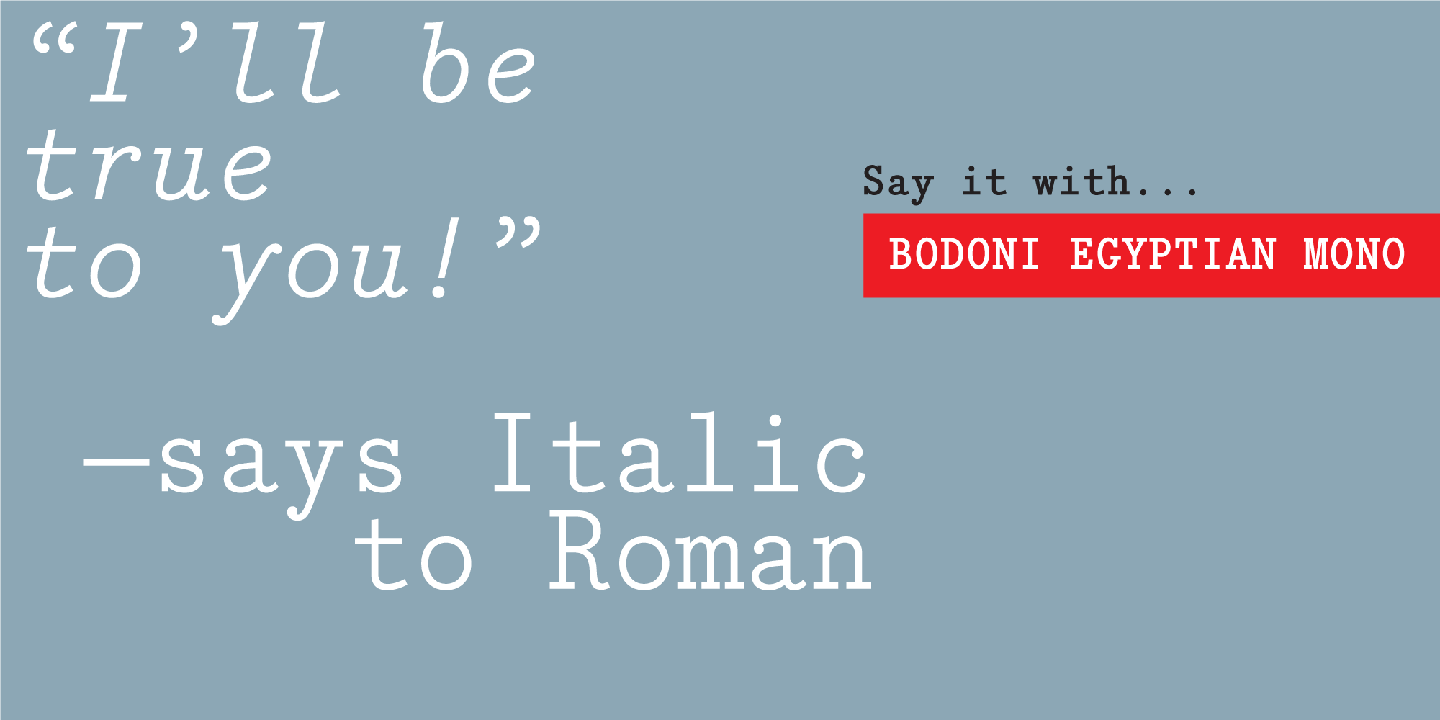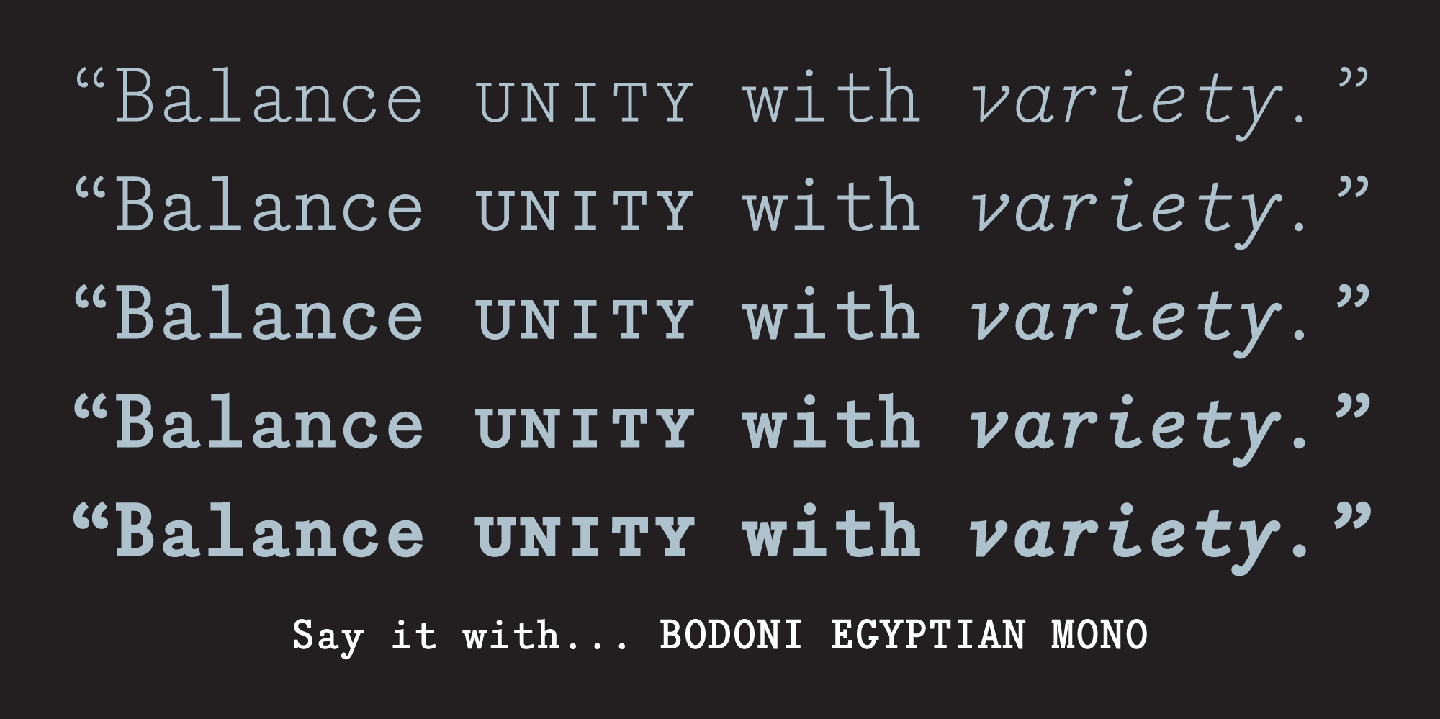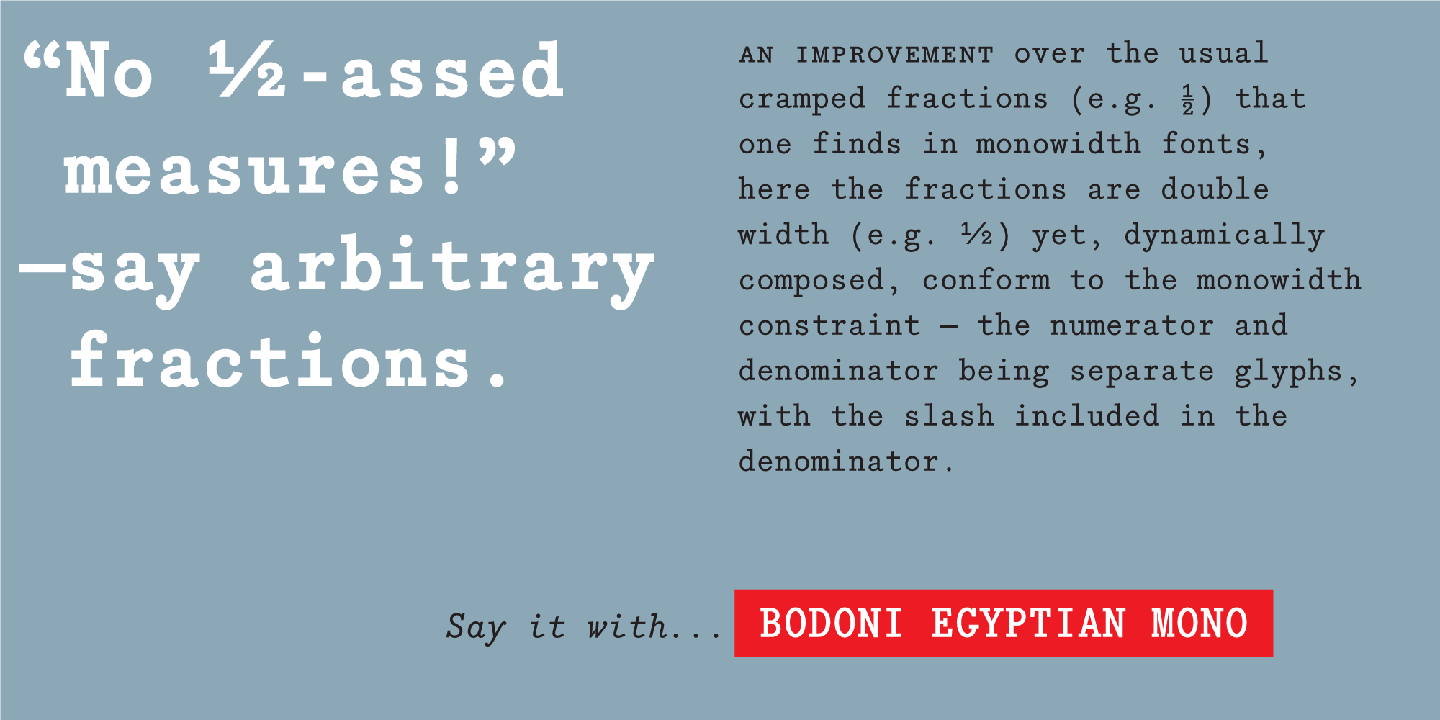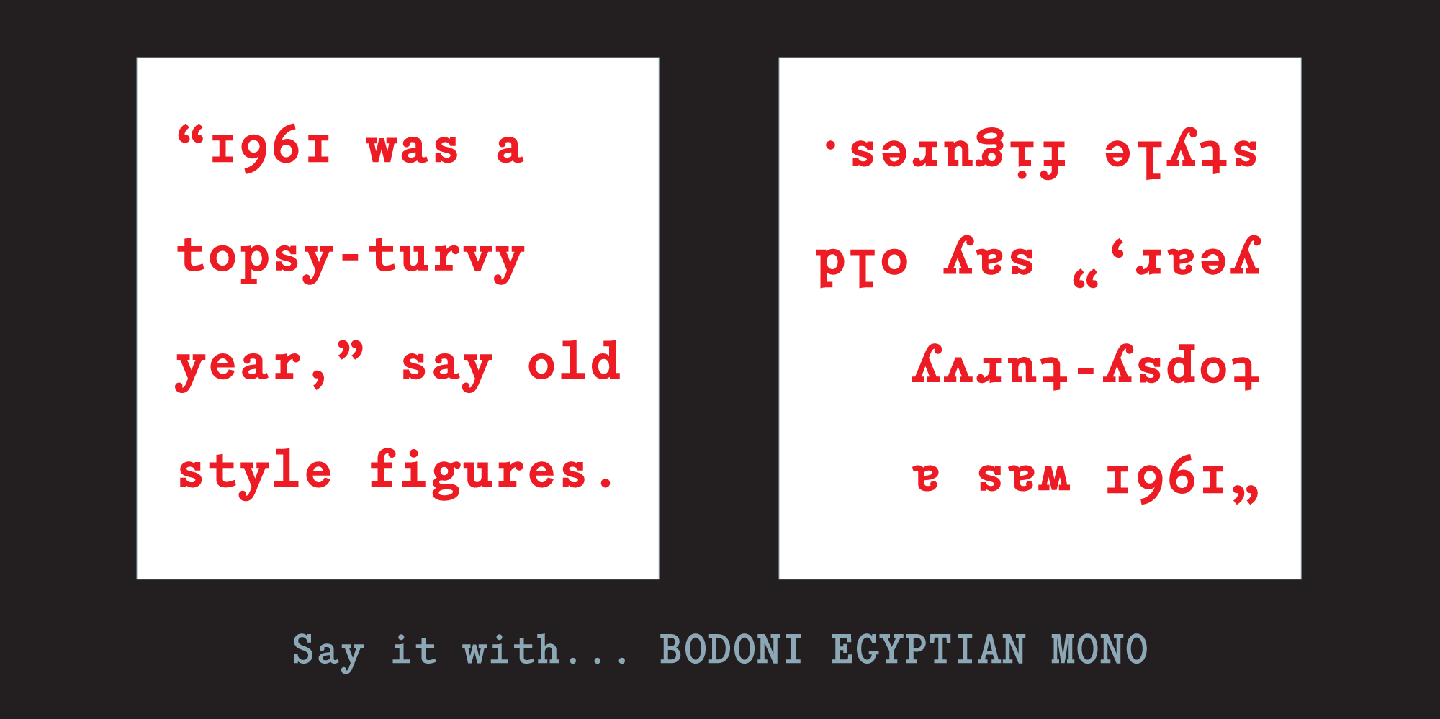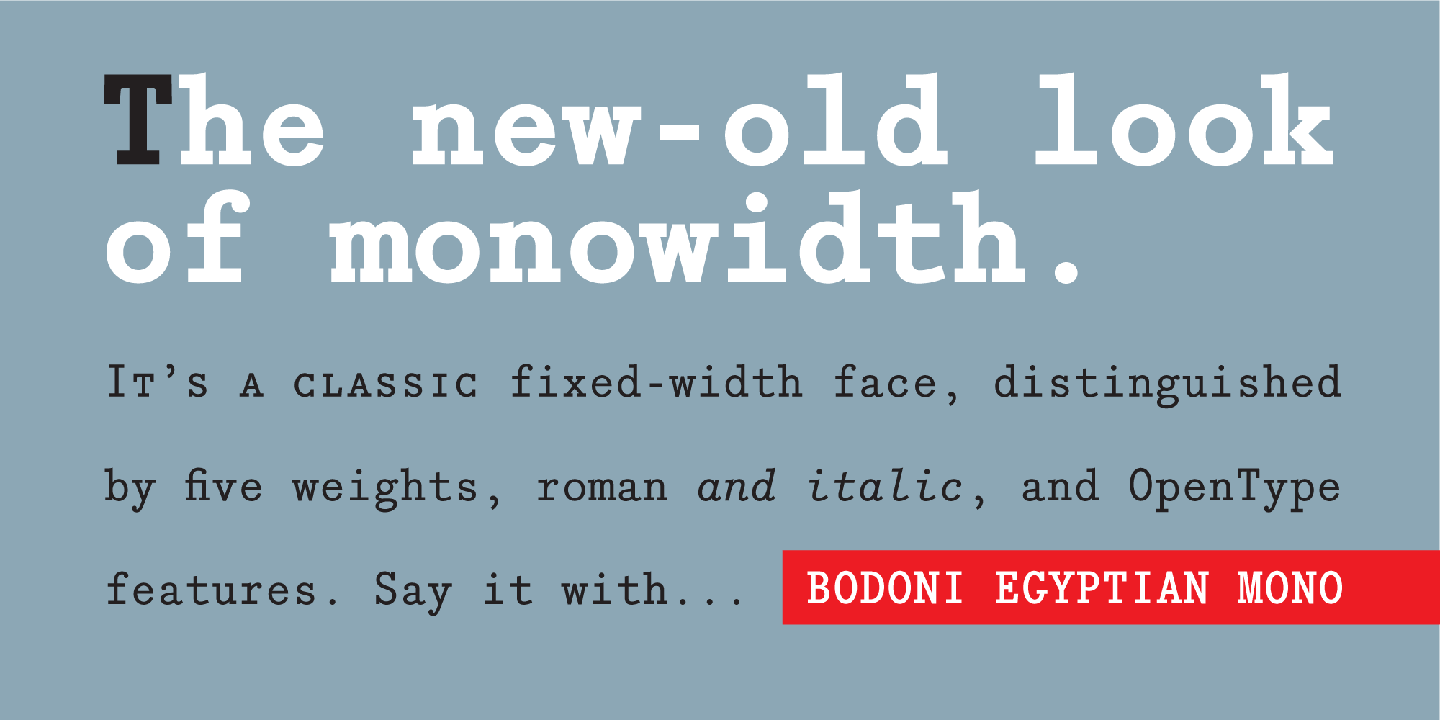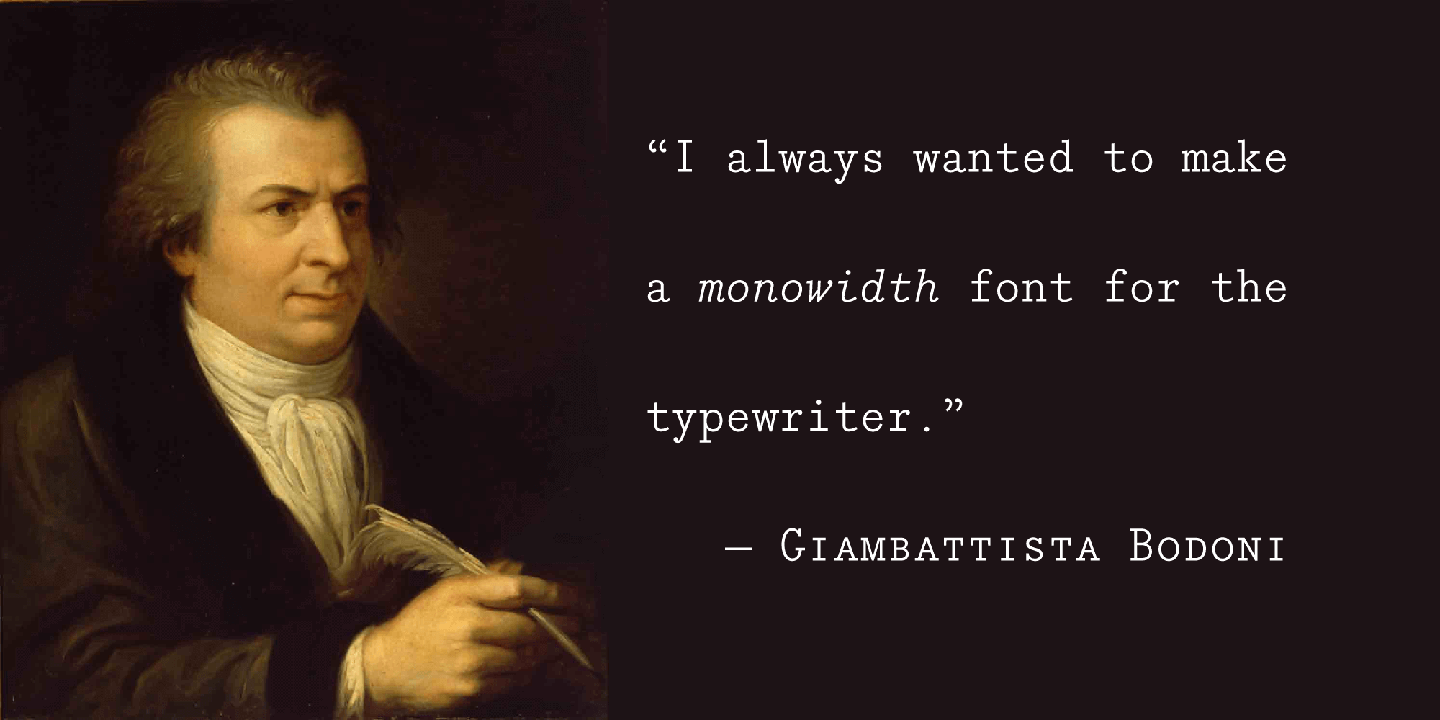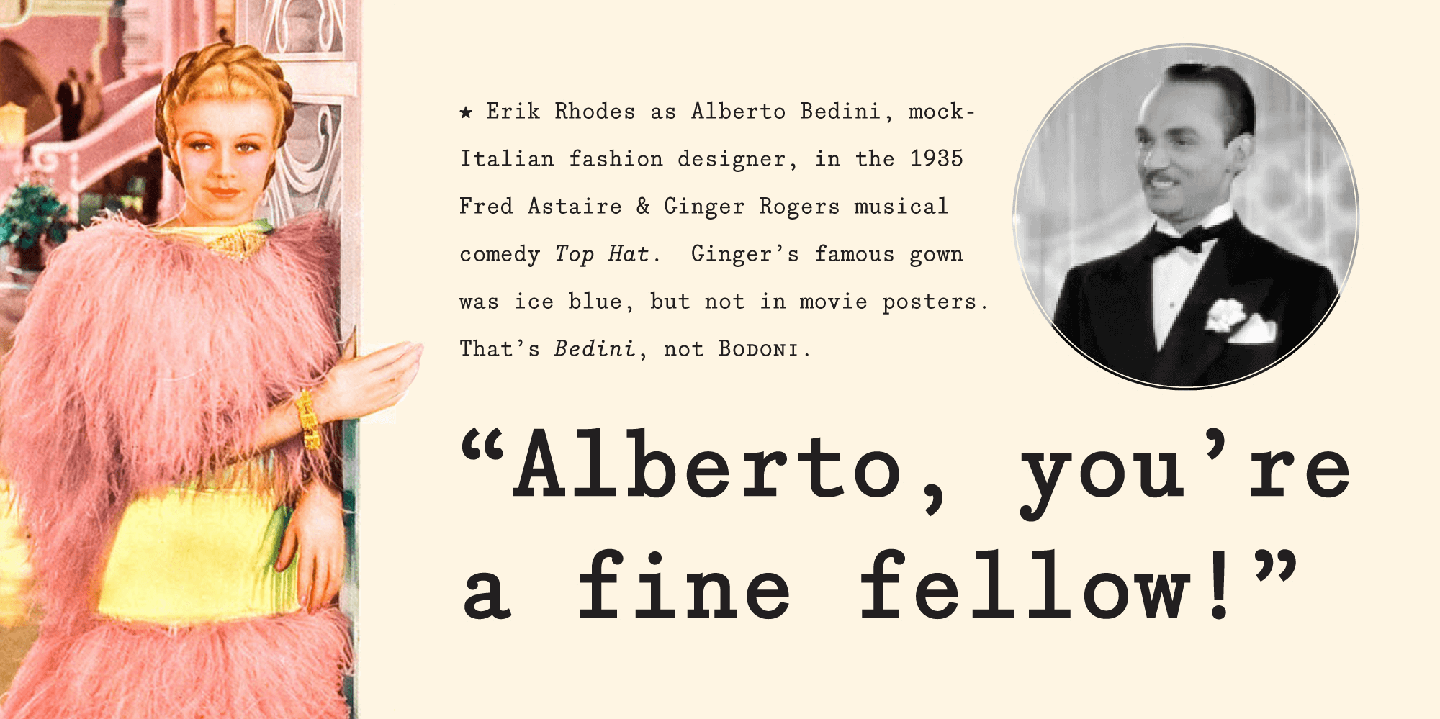
Bodoni Egyptian Mono
Font Family by Shinntype
An anachronism.
?Yes of course, the typewriter is an invention that didn't enter commercial production until 1873, sixty years after Bodoni's death!
So ironically, Bodoni Egyptian Mono assumes the classic dignity of early 19th century letter forms, while presenting itself as an expansive family of 21st century OpenType fonts, with a wide range of ?expert? features ? small caps, fractions, superior and inferior figures, old style and lining figures (at both cap and small cap height)'rendered throughout five weights in both roman and italic.